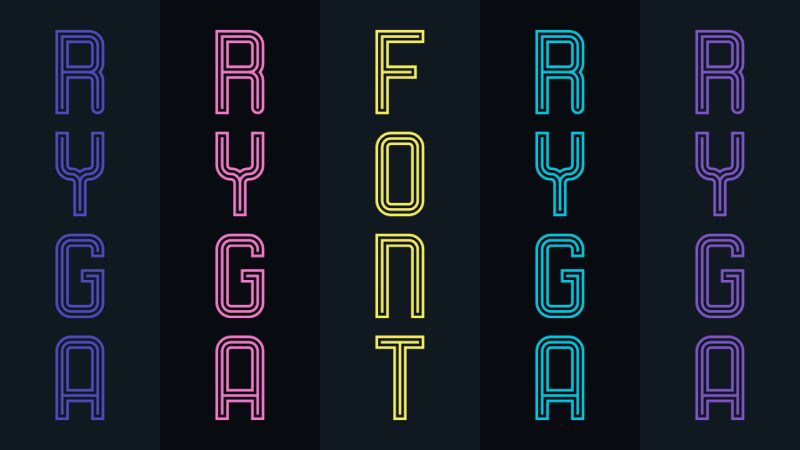
Ryga Regular
Ryga font by GGBotNet is a free retro display typeface that looks like neon tubing folded into crisp, geometric letterforms. Each character is traced by three parallel strokes, creating a bold outline that feels both arcade-era and freshly futuristic. The hollow interior keeps it airy and light, so even chunky words don’t feel heavy, just energetic and electric on the page or screen.
Using Ryga, headlines snap into focus like a glowing sign on a rainy night, making this free font a natural fit for posters, game covers, event flyers, YouTube thumbnails, logos, and bold wordmarks. It shines on short phrases and punchy titles, especially at large sizes where the layered lines can breathe. Pair Ryga with a clean, neutral sans serif for body text to keep layouts readable while letting its retro circuitry do the talking.